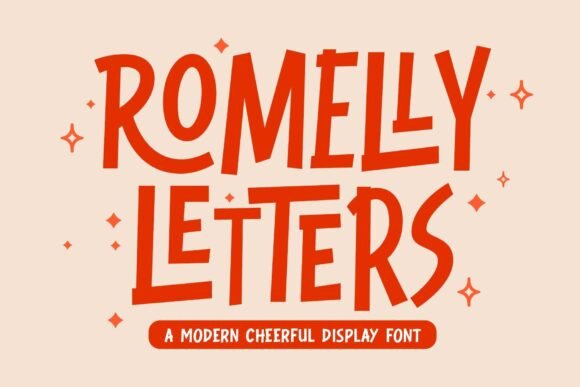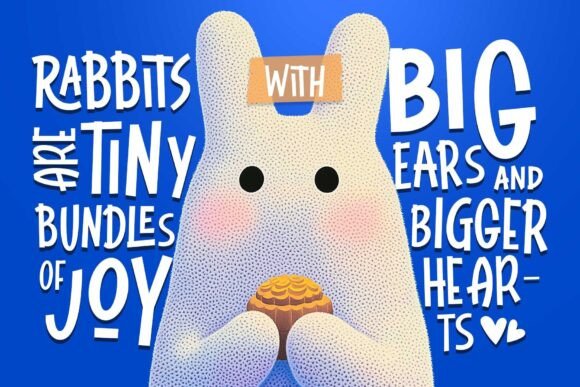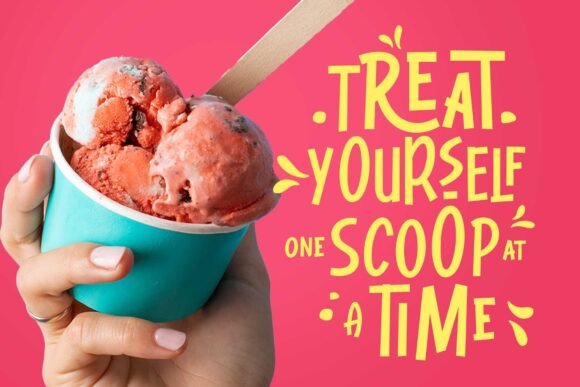
Romelly Letters Font
About the Romelly Letters Font
Discover the charm of Romelly Letters Font. This font is a perfect blend of modern aesthetics and classic appeal. Spread cheer and joy to the world with Romelly Letters, a playful handwritten font featuring a variety of ligatures and stylistic alternates. Designed with a childlike charm, a slim and tall shape, this font exudes personality, making it perfect as a display font.
Ideal for charming designs like books, stickers, kids’ apparel, packaging, labels, posters, toys, and so much more!
Romelly Letters’ playful energy makes it ideal for projects targeting a young audience or those needing a touch of whimsical charm. It works exceptionally well in headlines, logos for children’s products, and short, impactful text on packaging or posters. However, its thin strokes and handwritten nature make it unsuitable for body text or UI elements requiring high readability.
For optimal pairings, consider balancing Romelly Letters’ informality. A clean sans-serif like Open Sans can provide a solid foundation for supporting text, while a classic serif like Garamond adds a touch of sophistication if used sparingly. For a more playful approach, a geometric sans-serif such as Montserrat could enhance the overall youthful feel.
The font’s core personality is undeniably cheerful and friendly, conveying a sense of lightheartedness and approachability. Brands focused on children’s entertainment, crafts, or organic products would find it particularly effective.
Romelly Letters Font Usage Examples
Romelly Letters Font Example